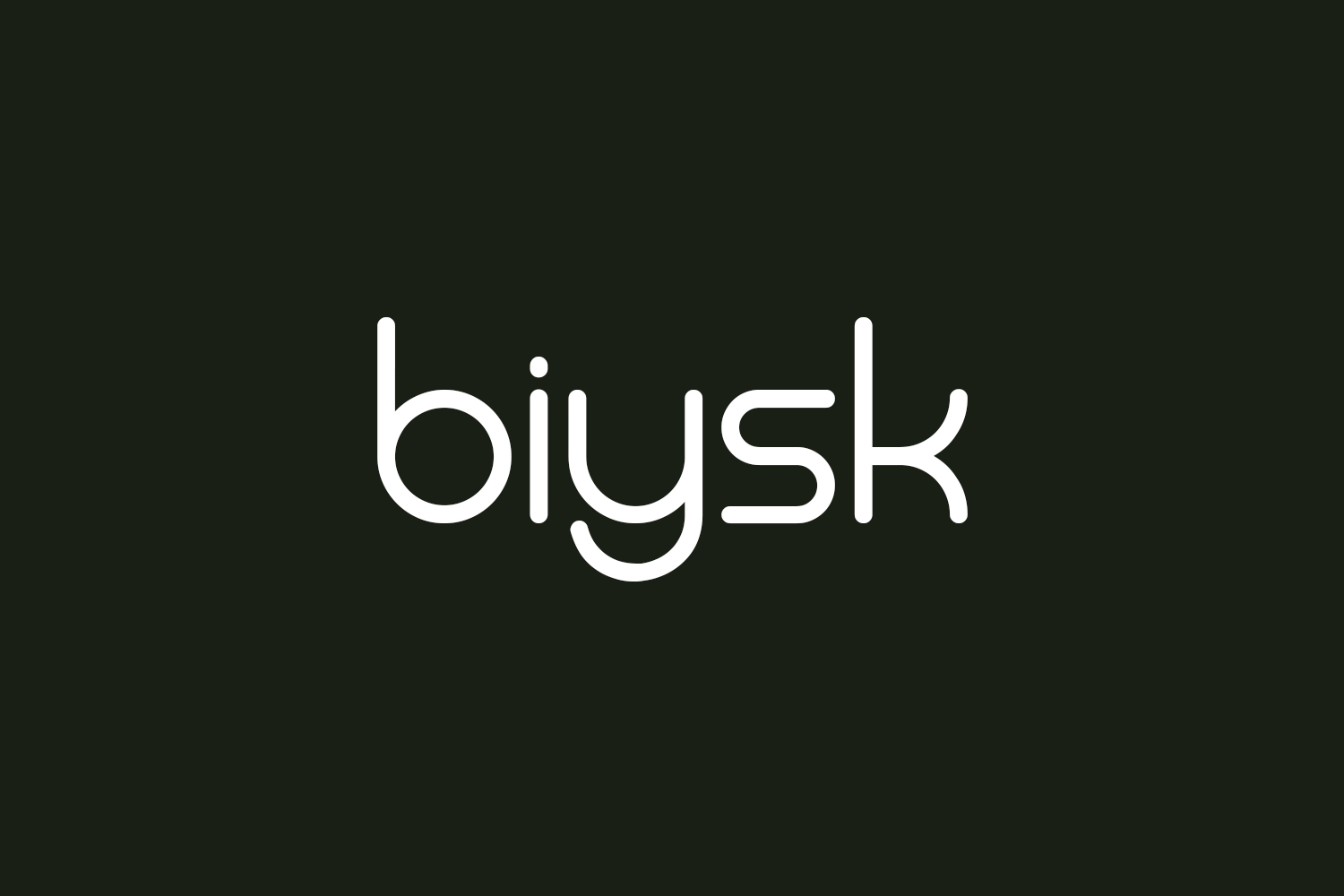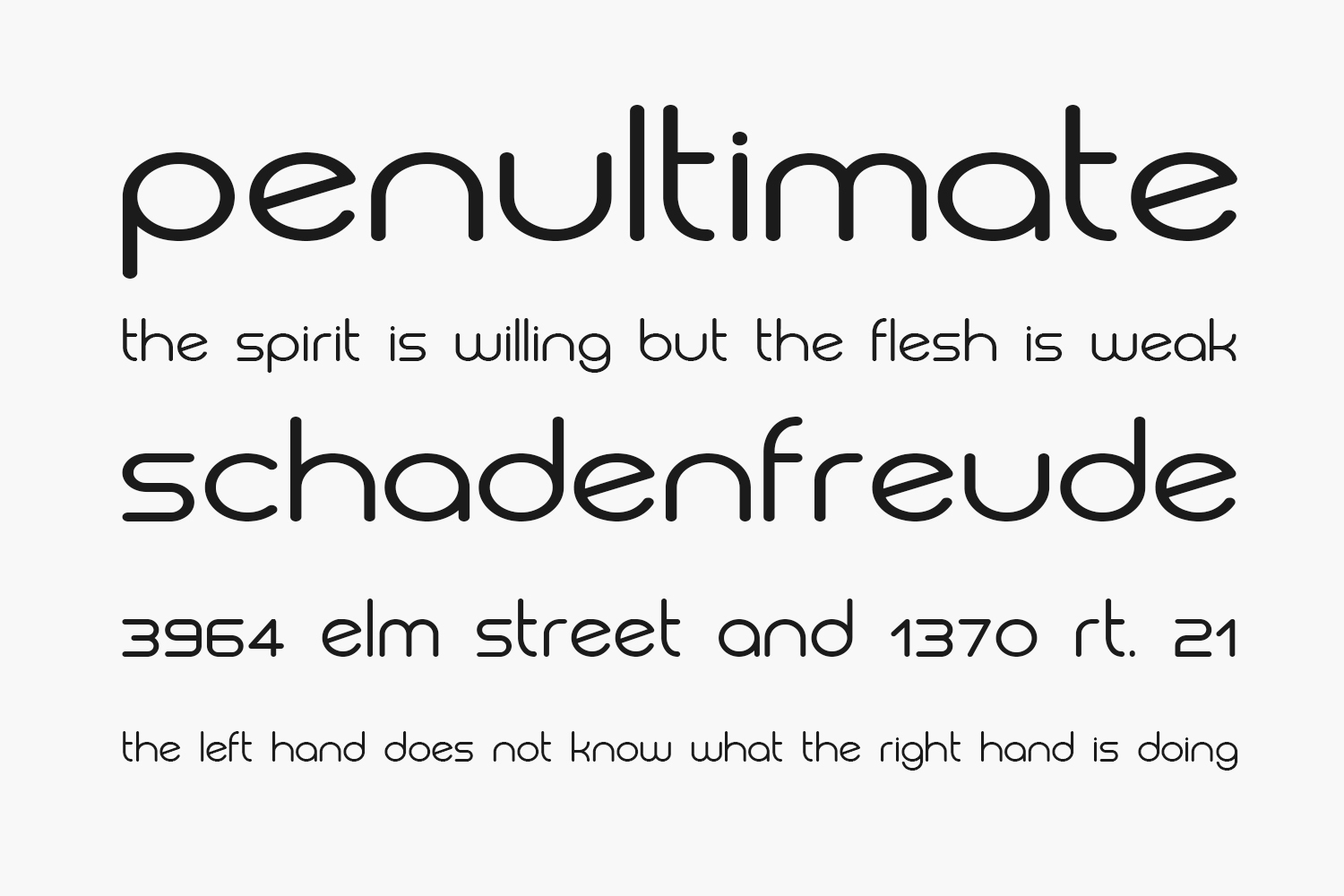
Biysk Free Font Family is an awesome Sans Serif typeface. It has a good readability and will look awesome on any print, t-shirt or flyer, or every other design which needs a simple, yet striking typeface. Biysk Free Font Family was designed by Vladimir Nikolic and is free for personal use only. Please purchase the full version for commercial use.
Biysk Regular The quick brown fox jumps over the lazy dog
Biysk Italic The quick brown fox jumps over the lazy dog
Biysk Bold The quick brown fox jumps over the lazy dog
Biysk Bold Italic The quick brown fox jumps over the lazy dog